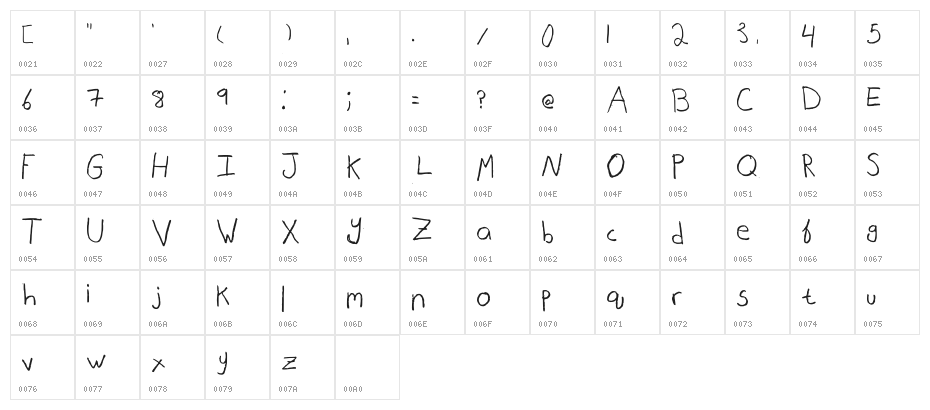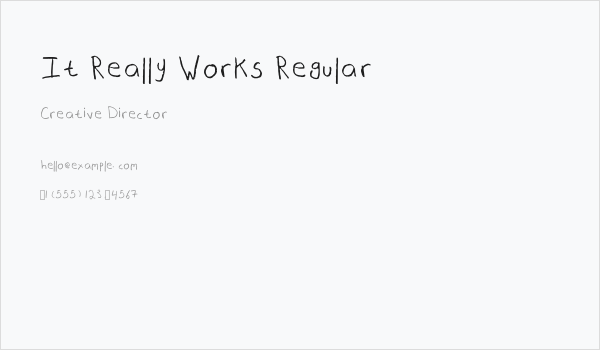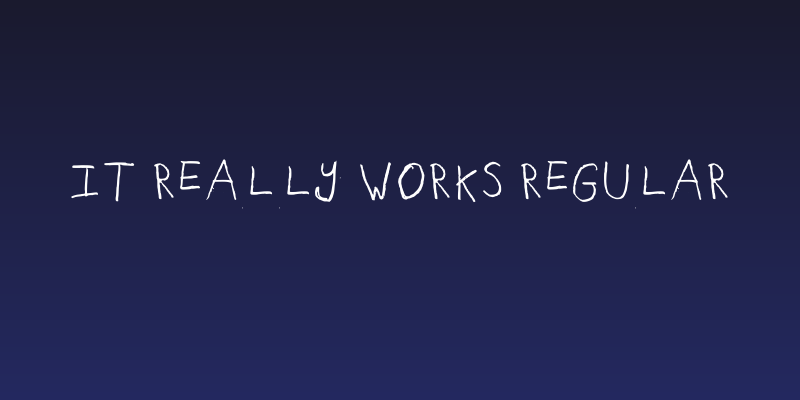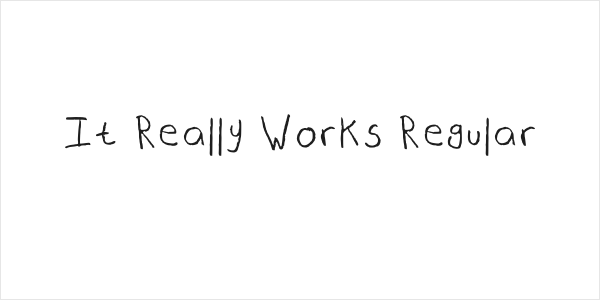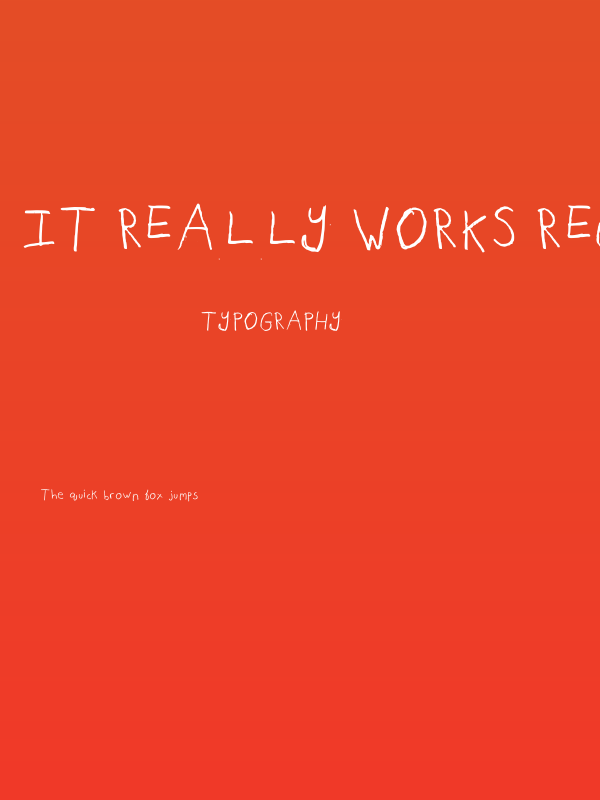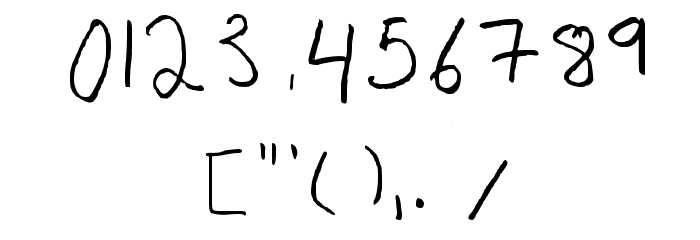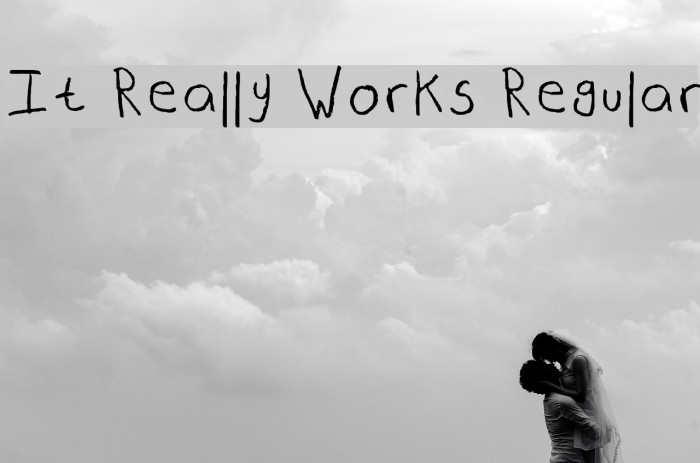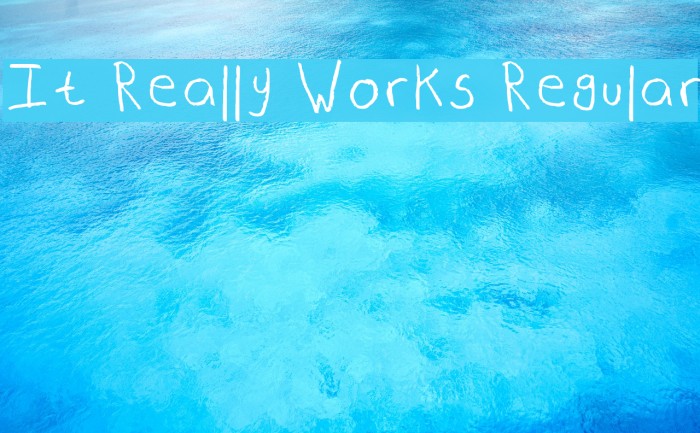
It Really Works Regular Font
It Really Works Regular Description
This font exhibits a playful and informal handwritten style, characterized by its uneven strokes and slightly irregular letterforms. The uppercase letters are bold and prominent, while the lowercase letters maintain a consistent flow with a casual appearance. The numbers are clear and legible, matching the overall style of the alphabet. Special characters are included, adding versatility to the font. The overall look is approachable and friendly, making it suitable for projects that require a personal touch.
IT-REALLY-WORKS-REGULAR UPPERCASE
IT-REALLY-WORKS-REGULAR LOWERCASE
IT-REALLY-WORKS-REGULAR OTHER CHARS
| Use Case | Headlines, Logos, Informal text |
| Proposed Projects | Ideal for greeting cards, children's books, casual invitations, and personal branding projects. |